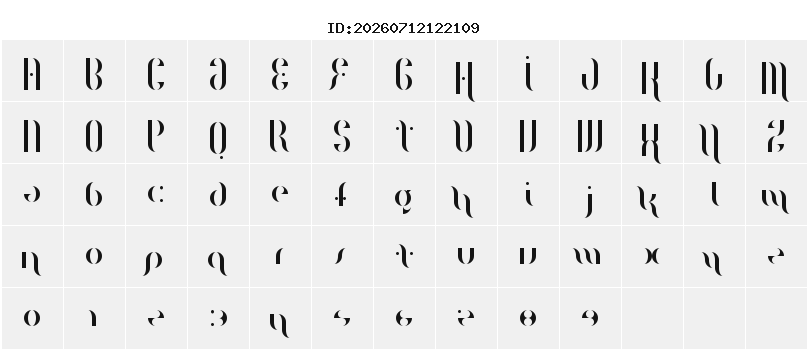
• Font Name: Magenta Flow
• Font ID: FontStruct Magenta Flow
• Full Font Name: Magenta Flow Regular
• PostScript Name: Magenta-Flow
• Character Count: 99
• Designer: NAL
• Description: “Magenta Flow” was built with FontStruct
Magenta Flow.ttf is a modern, elegant sans-serif font designed for ultimate readability and visual harmony. Perfect for branding, headlines, web design, and print materials.